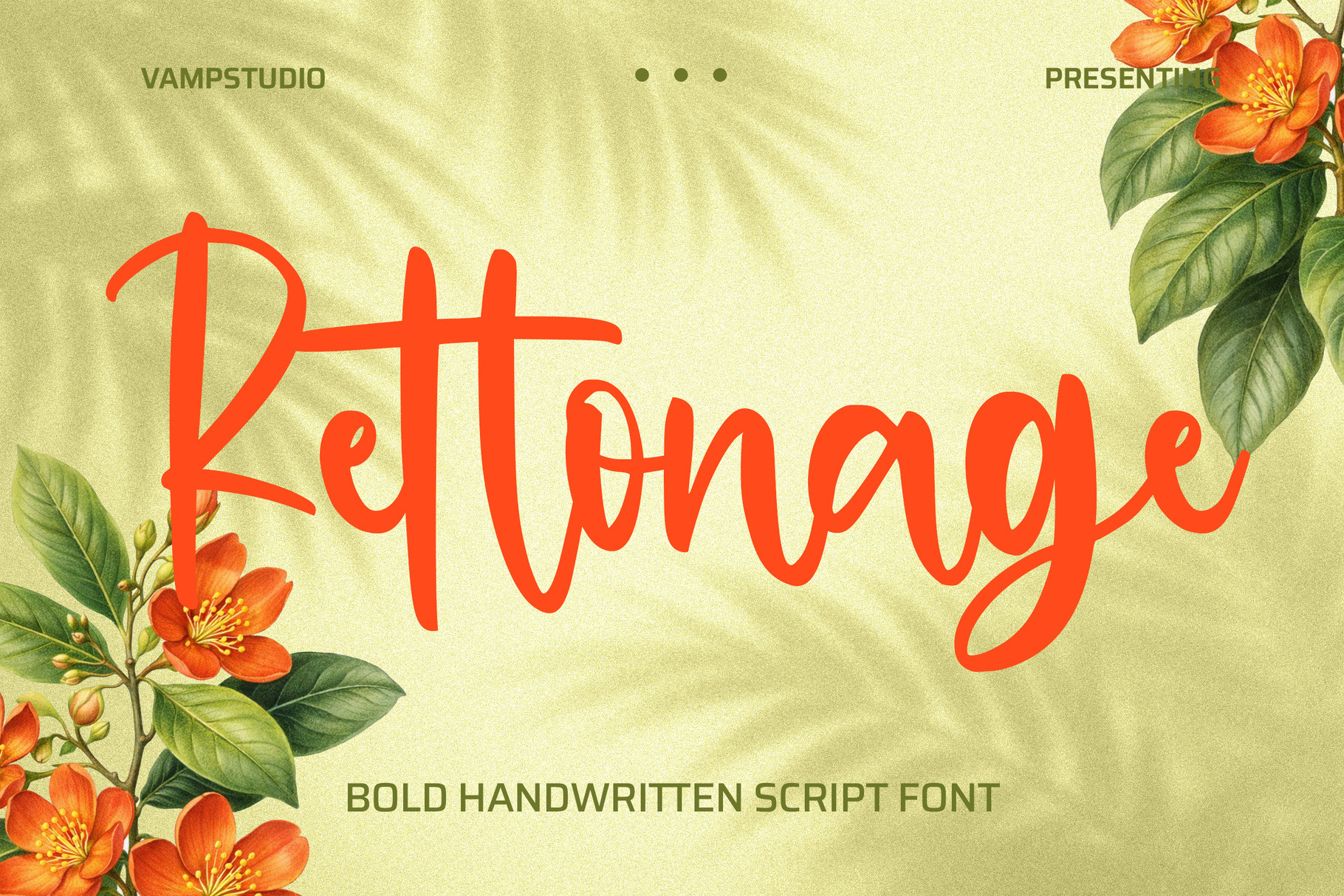
Rettonage – Handwritten Script Font
Rettonage is a stylish handwritten script font designed to deliver a natural, personal, and expressive feel. With its smooth strokes, handcrafted character shapes, and elegant handwritten flow, Rettonage brings warmth and authenticity to every design.
This font is ideal for creatives looking to create modern branding with a personal touch. Whether you are designing logos, wedding invitations, social media content, product packaging, feminine branding, or inspirational quotes, Rettonage gives your typography a charming and artistic appearance.
Its clean readability and organic movement make it versatile for both digital and print applications.
Uppercase & Lowercase Characters
Natural Handwritten Style
Elegant Script Letterforms